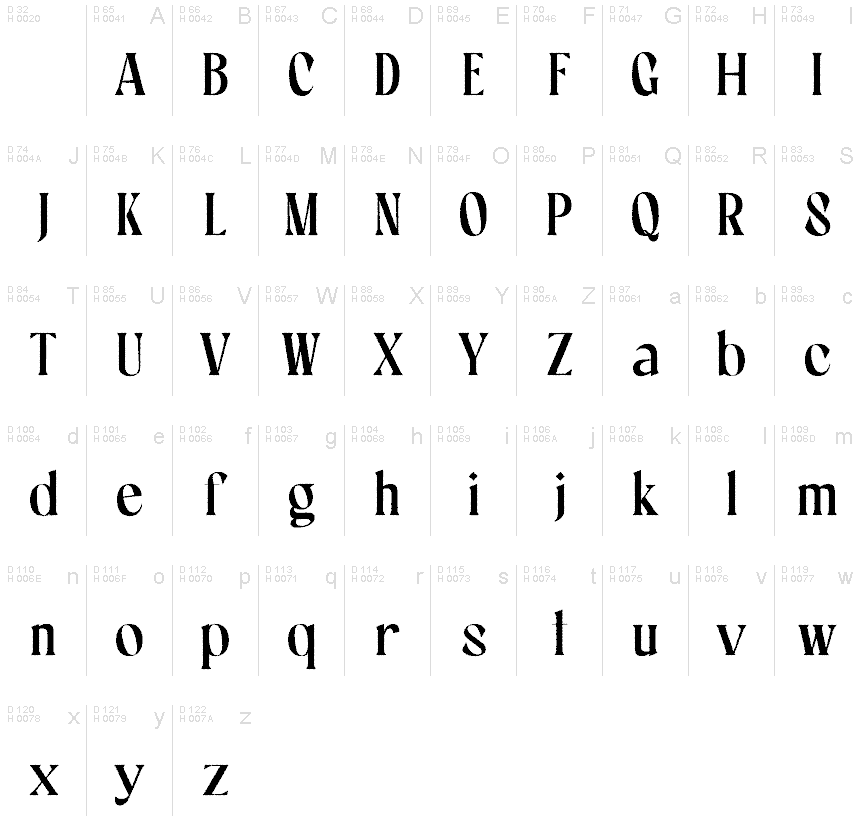
Magely Rough Regular Demo
Magely Rough font by Craft Supply Co. is a free serif font that balances classic influence with textured elegance. Its rich texture and subtle movements evoke a sophisticated yet traditional aesthetic, making it an excellent tool for creating timeless designs with a modern twist. The presence of serif elements grounds its vintage appearance in literary or high-fashion contexts.